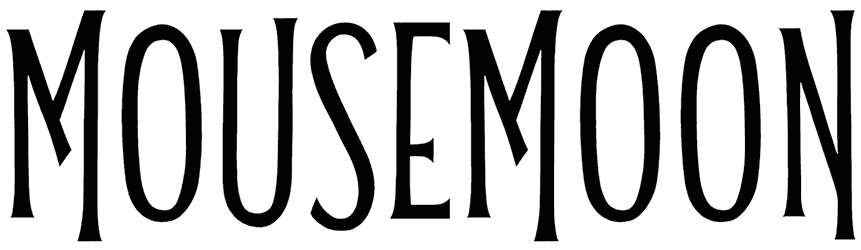
Mouse Moon Font
If you’re looking for a powerful font, you can stop searching because you just found it. Mouse Moon is a Halloween font with an energetic look that can provide you with the alphabet in a format as powerful as serif fonts.
So if you only need a similar atmosphere and a different look, you can use this handwritten font anywhere that needs to attract attention and impact. This font is a versatile proposition for designing posters and advertising packaging.